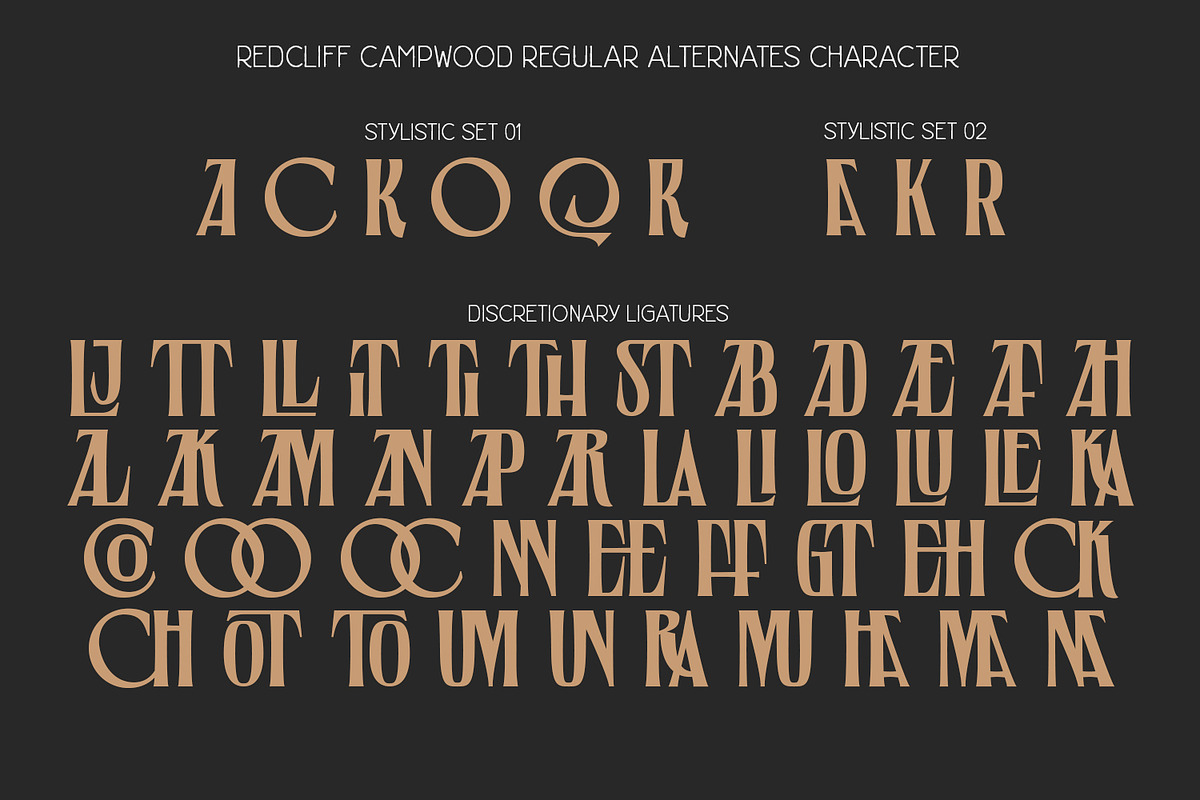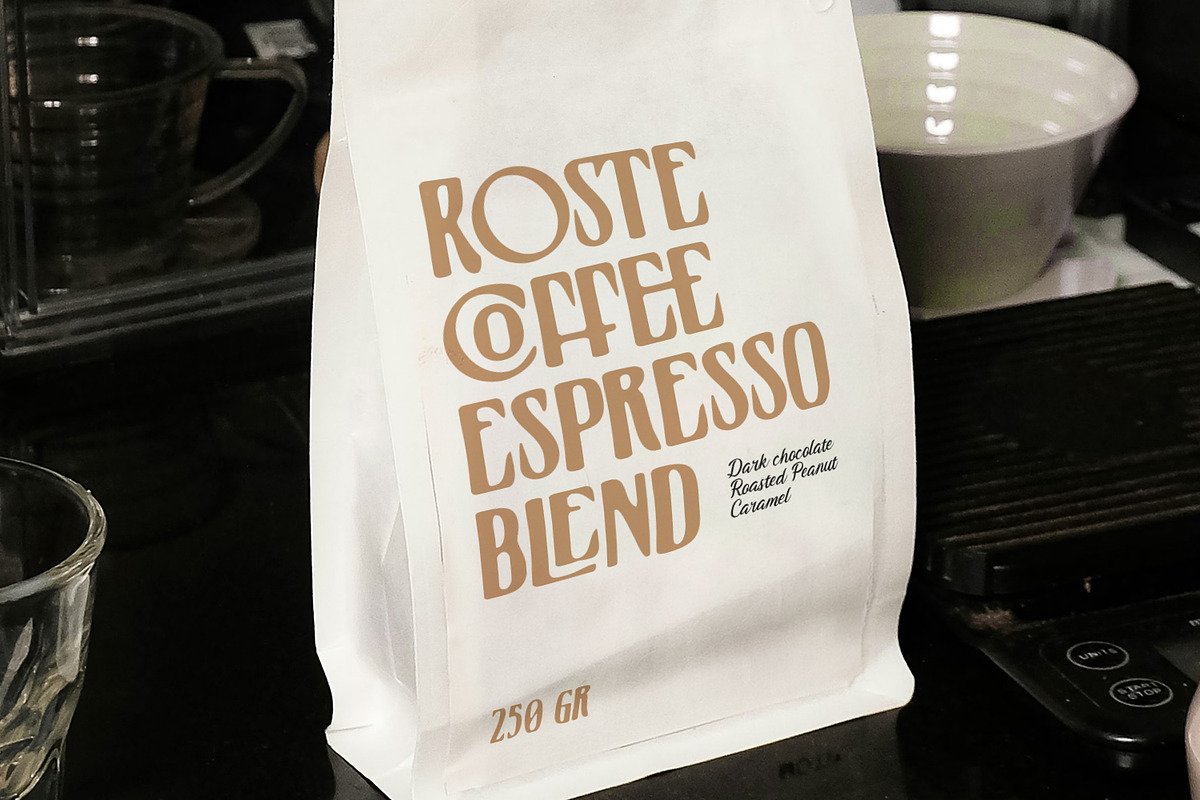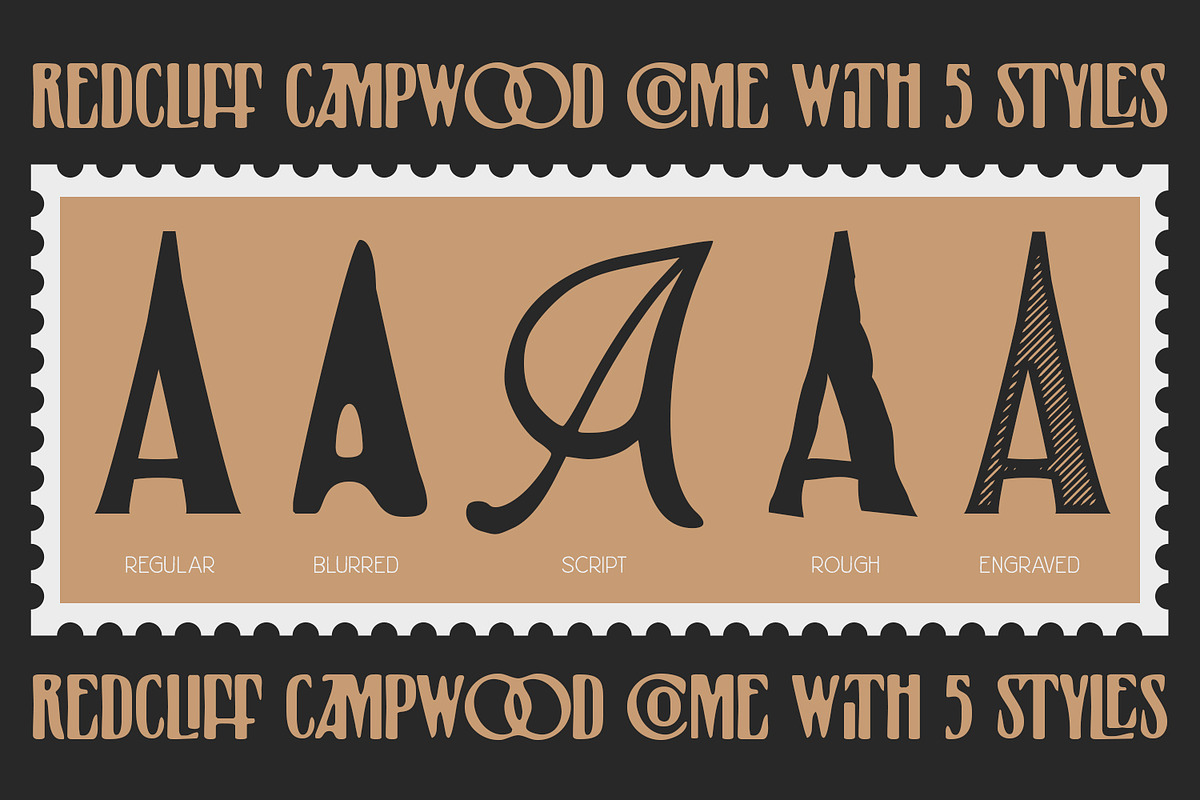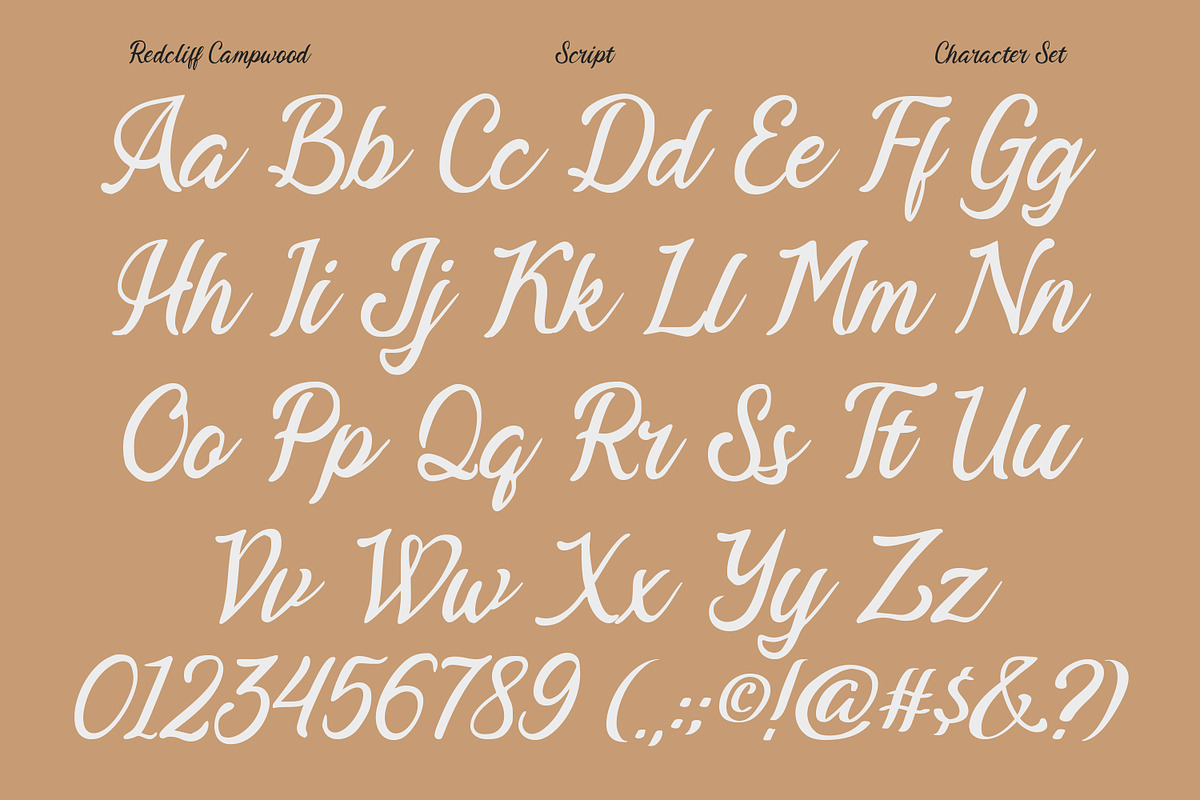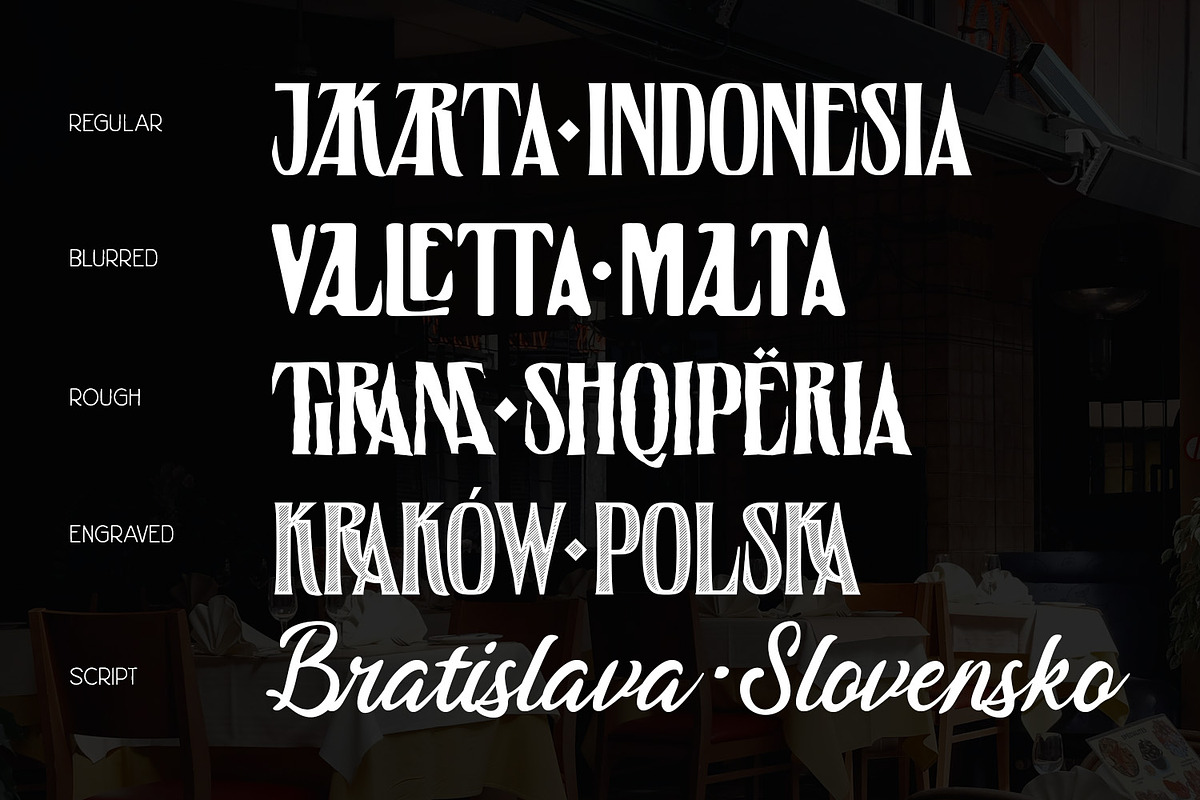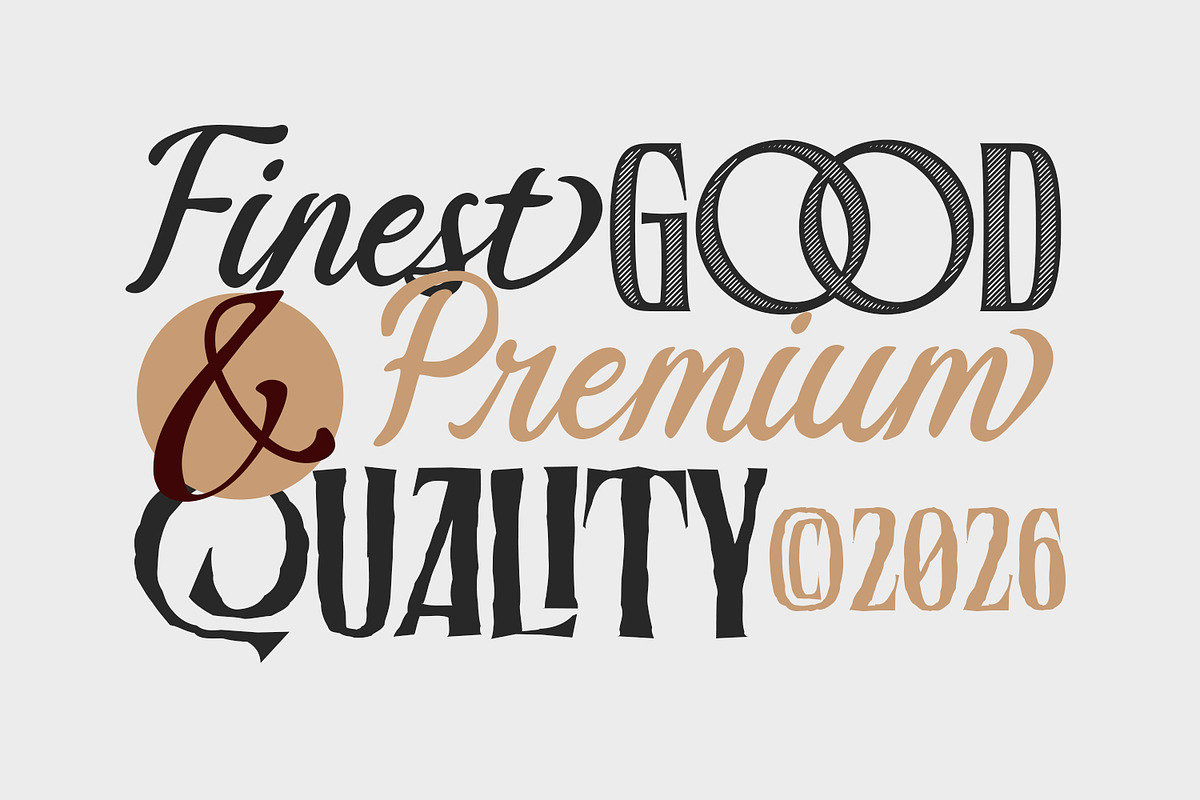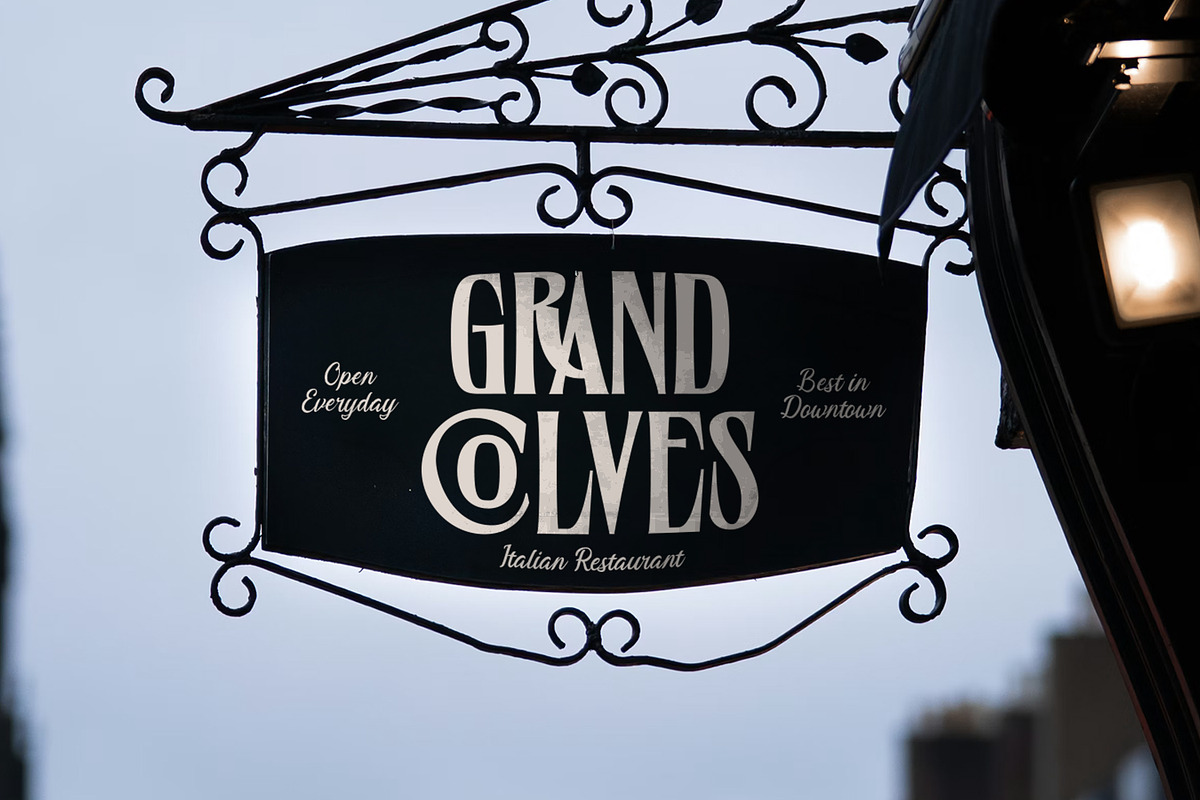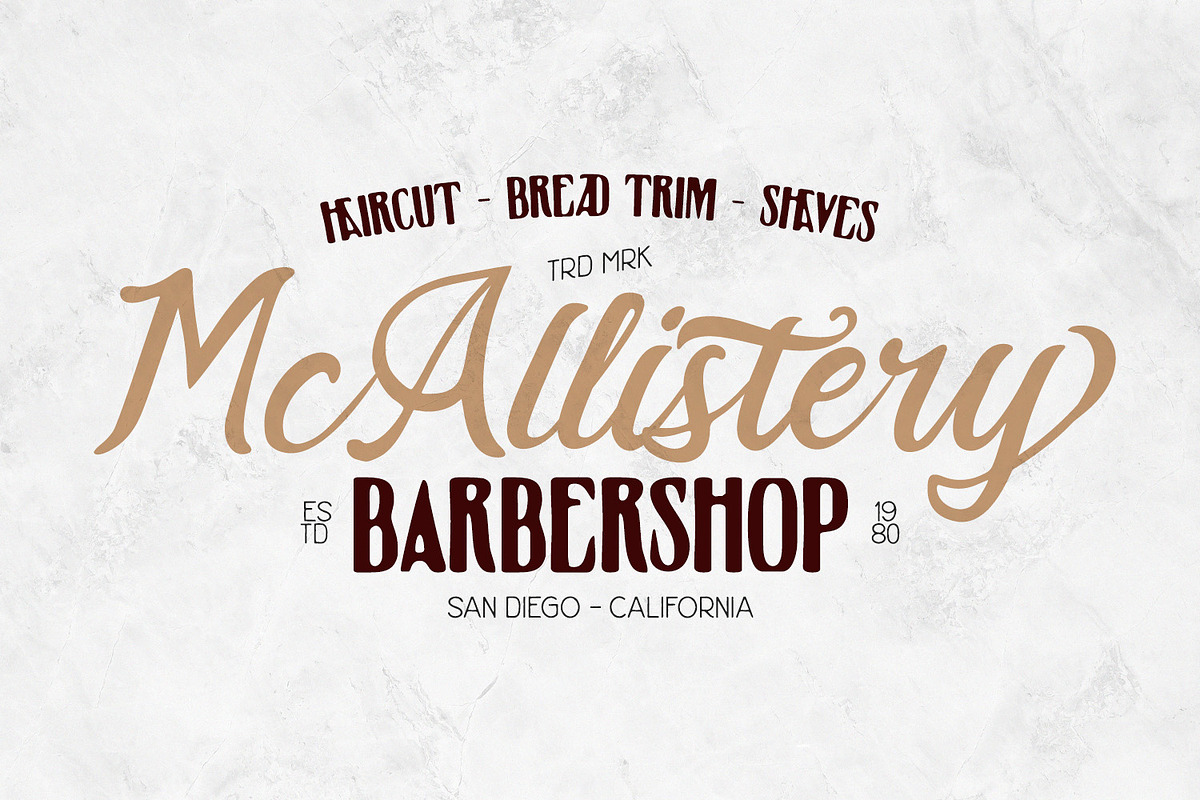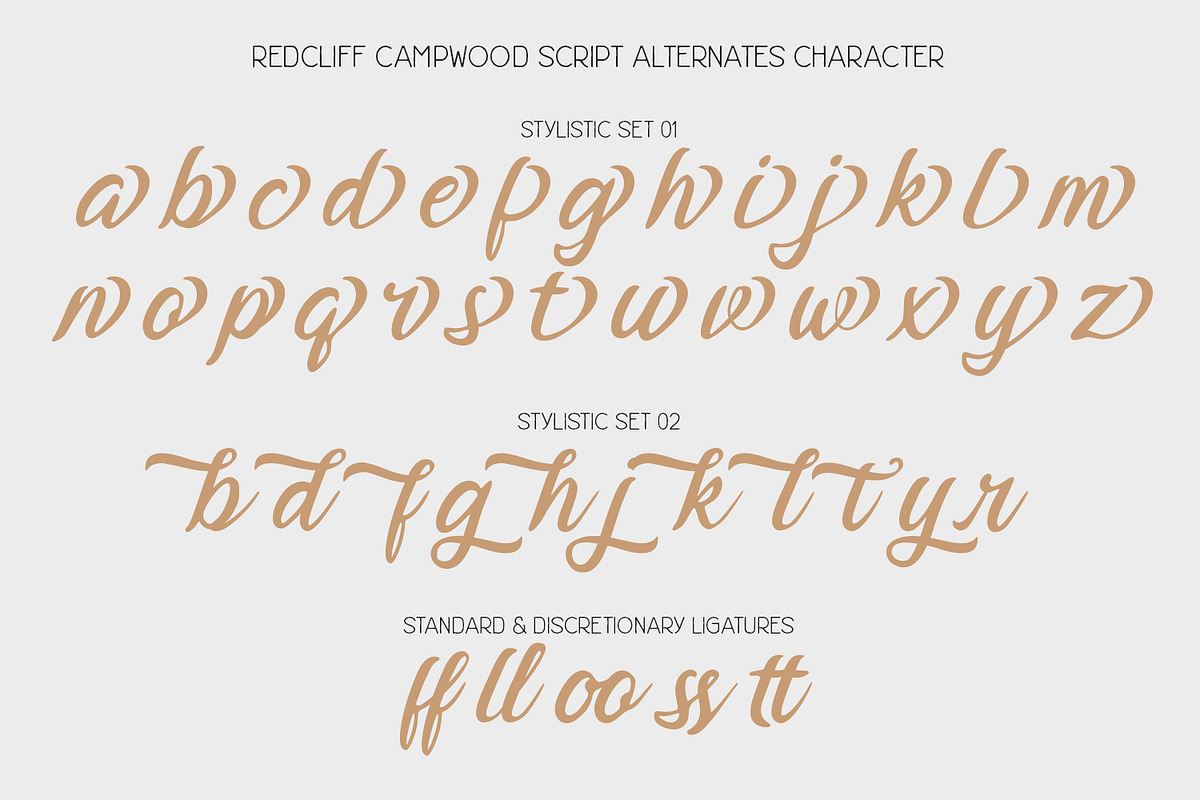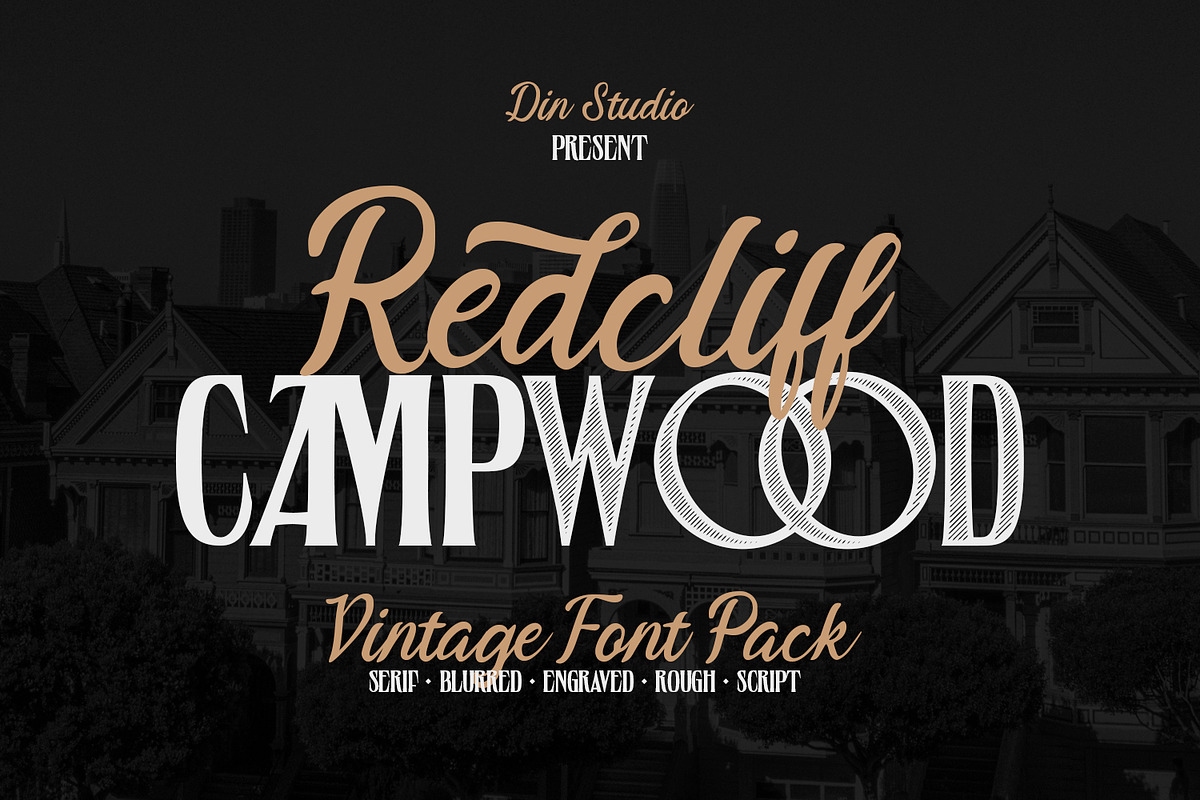
Redcliff Campwood
Redcliff Campwood is a premium vintage font pack designed to capture the timeless character of classic retro typography. Inspired by old camping signage, rustic lettering, heritage branding, and handcrafted print styles, this font collection brings an authentic vintage atmosphere to any creative project. This vintage font pack contains serif, blurred, engraved, rough and script font. Each typeface in the collection is designed to evoke the spirit of adventure, outdoor culture, and traditional craftsmanship. In addition, enjoy the features here.
Stylistic Sets
Multilingual Supports
Numerals and Punctuations
Redcliff Campwood fits in logos, quotes, name cards, branding, posters, and many more designs. Find out more ways to use this font by taking a look at the font preview.